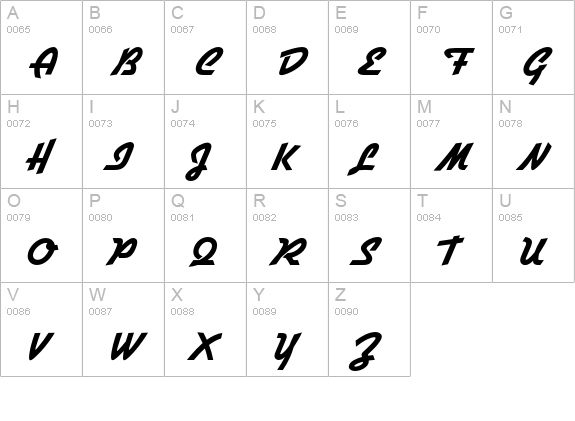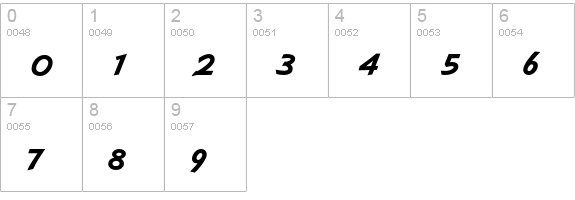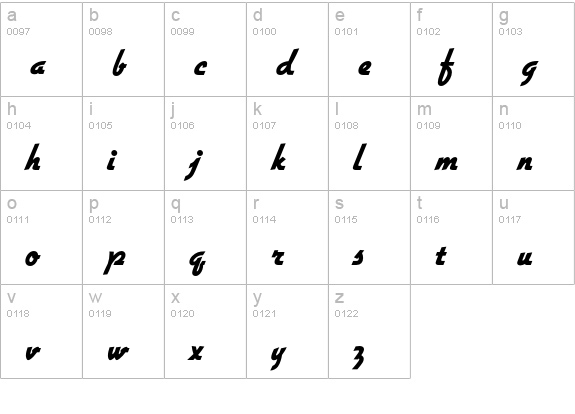
GilliesGothicEF-ExtraBold Font Details
GilliesGothicEF-ExtraBold is an extra-heavy, attention-grabbing variant in the GilliesGothicEF typeface family \xE2\x80\x94 well suited to high-impact headlines, posters, and bold branding.
GilliesGothicEF-ExtraBold is a stunning and impactful font that exudes a sense of elegance and sophistication. Its bold and Gothic-inspired design makes it perfect for creating eye-catching headlines, posters, and branding materials. The strong lines and intricate details of this font give it a unique and timeless appeal that is sure to make your designs stand out. Not only does GilliesGothicEF-ExtraBold offer exceptional visual impact, but it also provides excellent readability and versatility across various design projects. Whether you are working on a modern website, a vintage-inspired print piece, or anything in between, this font is sure to elevate your design to the next level. Best of all, GilliesGothicEF-ExtraBold is available for free download at FontsMarket.com. So, you can add this beautiful font to your collection without any cost. Don't miss out on the opportunity to enhance your designs with the striking beauty of GilliesGothicEF-ExtraBold. Download it today and let your creativity shine!